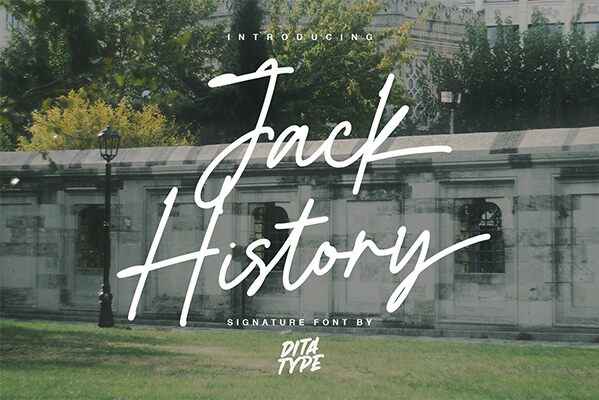
Jack History font by Ditatype captures the essence of personal touch and elegance with its handwritten, signature style. This free font exudes a charming fluidity, making it perfect for designers seeking to add an authentic, human element to their projects. Its graceful strokes and natural flow evoke a sense of warmth and sophistication.
Ideal for logos, invitations, and branding materials, Jack History font seamlessly blends modern aesthetics with a classic feel. Easily downloadable and versatile in application, this font is designed to make your work stand out while maintaining readability.